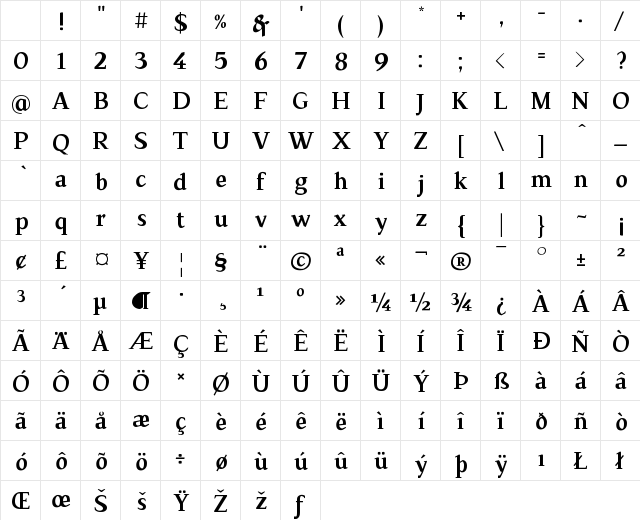
Complete TS-ChapineroSerif Medium glyph index. Displaying only characters natively supported by TS-ChapineroSerif Medium font.
TS-ChapineroSerif carries the refined structure of traditional serif typography, with bracketed terminals and considered proportions that communicate credibility and craft.